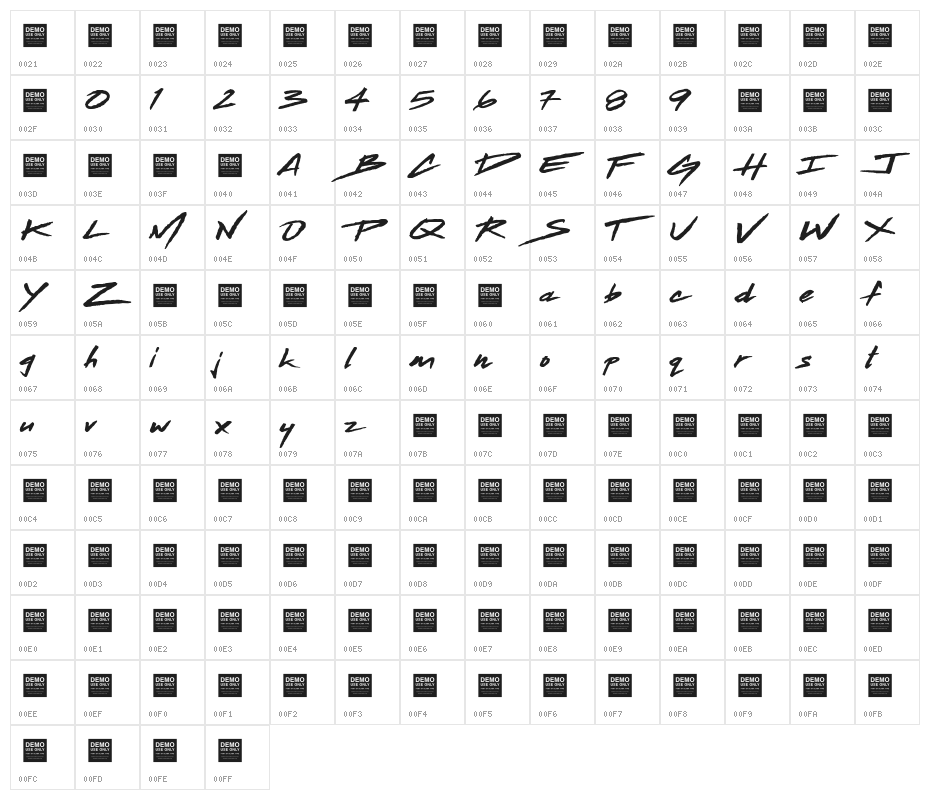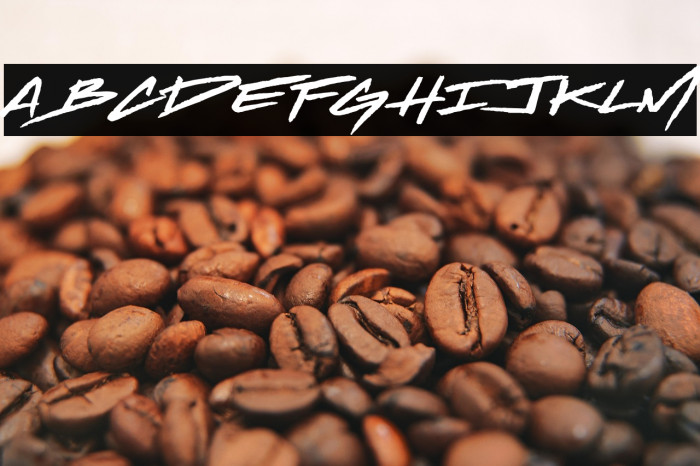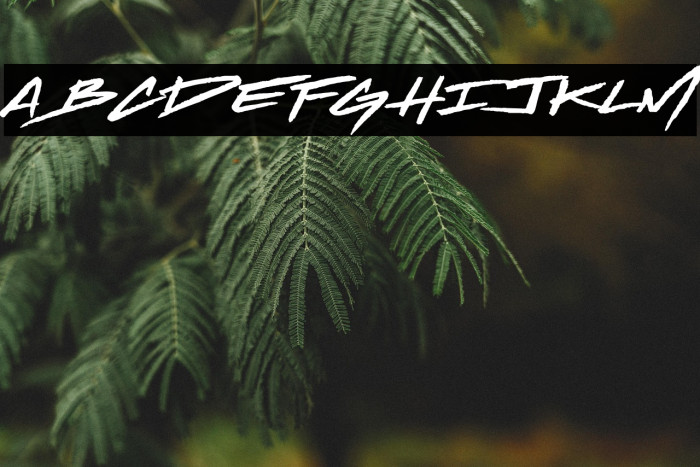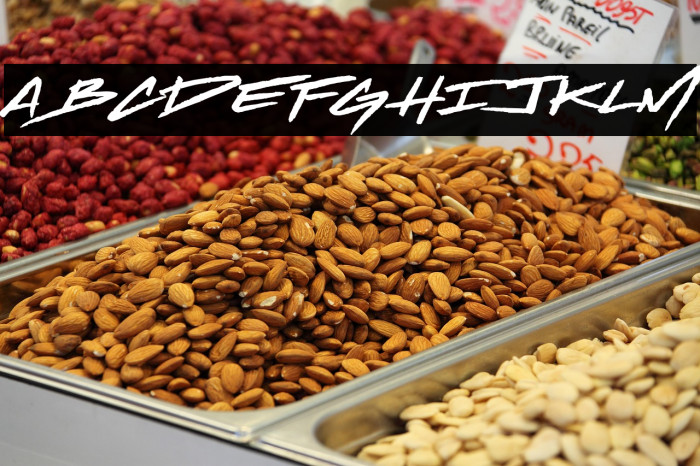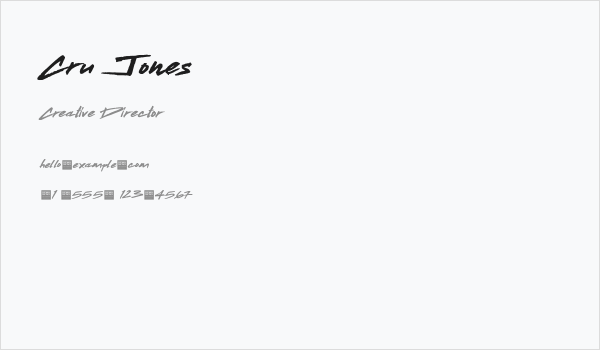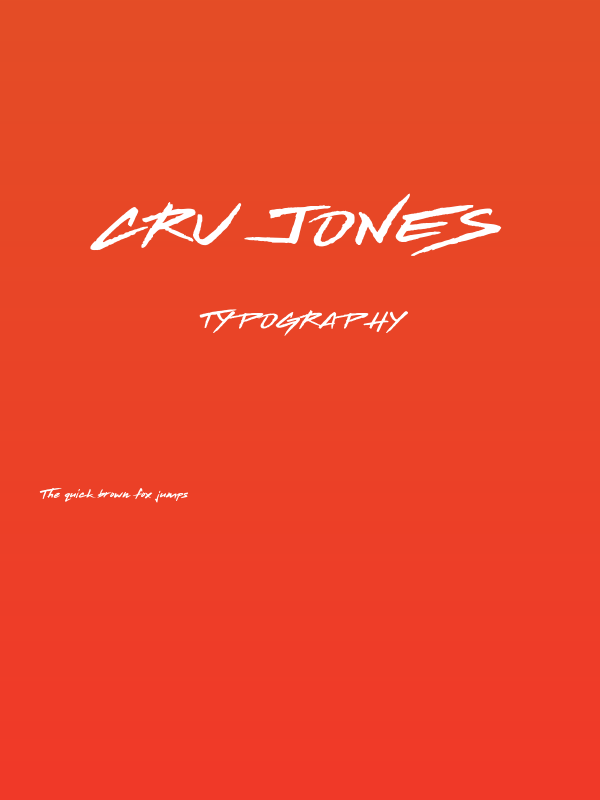
Cru Jones Font
Cru Jones Description
This font features a dynamic and energetic script style, characterized by its bold and expressive strokes. The letters are designed with a sense of movement and flair, giving a handwritten appearance that is both modern and edgy. The uppercase and lowercase letters maintain a consistent style, with sharp angles and fluid curves that create a sense of urgency and excitement. The numerals and special characters follow the same design principles, ensuring a cohesive look across all elements. This font is ideal for projects that require a personal touch or a sense of spontaneity.
Proposed ProjectsIdeal for branding, logos, posters, and any design needing a dynamic, personal touch.